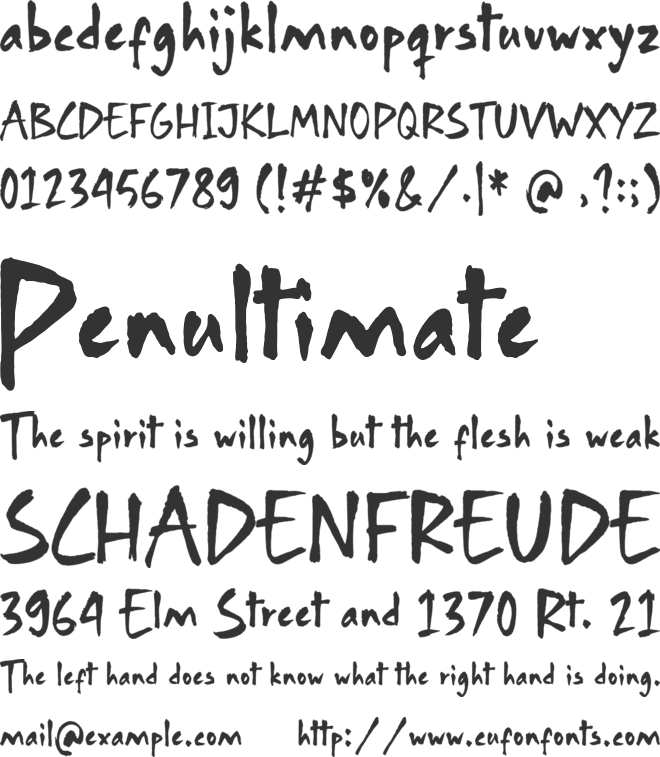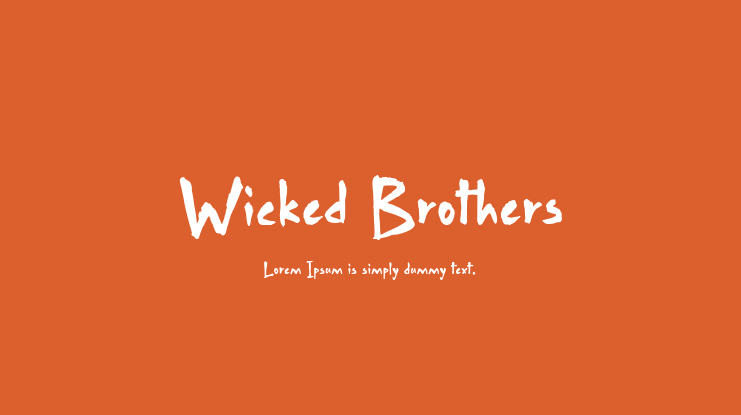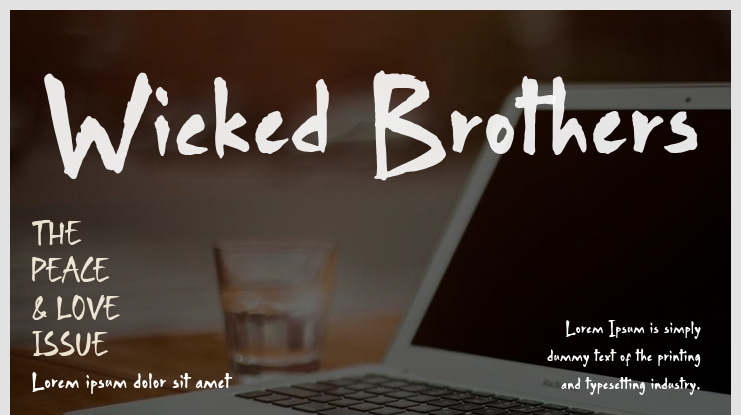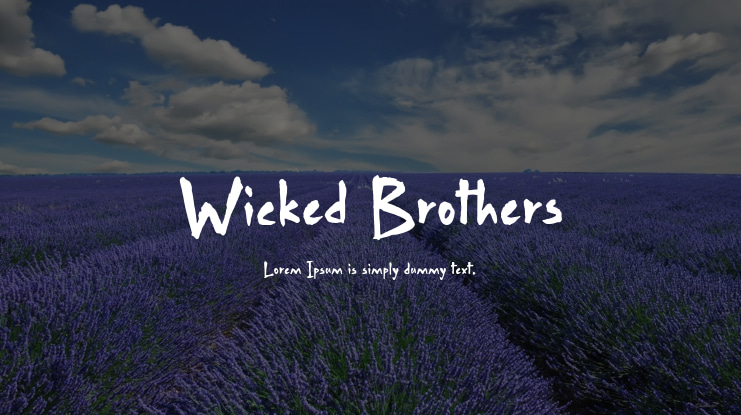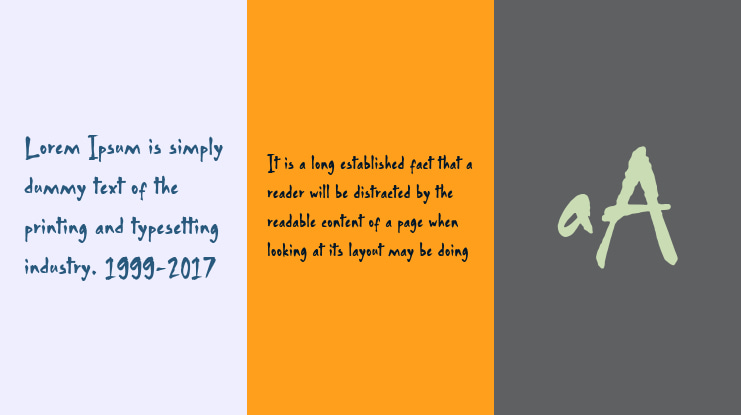
Introducing the Wicked Brothers Font by Timurtype Studio! Wicked Brothers is a rough hand brushed font that emanates a daring and rebellious aura. Its rugged brushstrokes and irregular lines create a raw and wild sensation, perfect for designs that aim for a bold and energetic look. With its unique charm, Wicked Brothers injects a hint of attitude into any project, making it ideal for posters, logos, and branding that demand attention and set themselves apart from the rest. This font package includes: - OTF - TTF - WOFF Wicked Brothers Font also supports multiple languages. Features of Wicked Brothers Font: - Complete set of standard alphabet and punctuation. By downloading and using this font, you agree to the Product Usage Agreement: - This demo font is for personal use only. Commercial use is prohibited. To purchase the full version and obtain a commercial license, visit: [https://timurtype.com/product/wicked-brothers/](https://timurtype.com/product/wicked-brothers/) For corporate use, a corporate license must be purchased, contact [](mailto:) For custom license inquiries, please contact [](mailto:) We appreciate any donations. To donate via PayPal, click here: [https://paypal.me/timurtypestd](https://paypal.me/timurtypestd) Explore more fonts at our store: [https://timurtype.com](https://timurtype.com) Thank you.